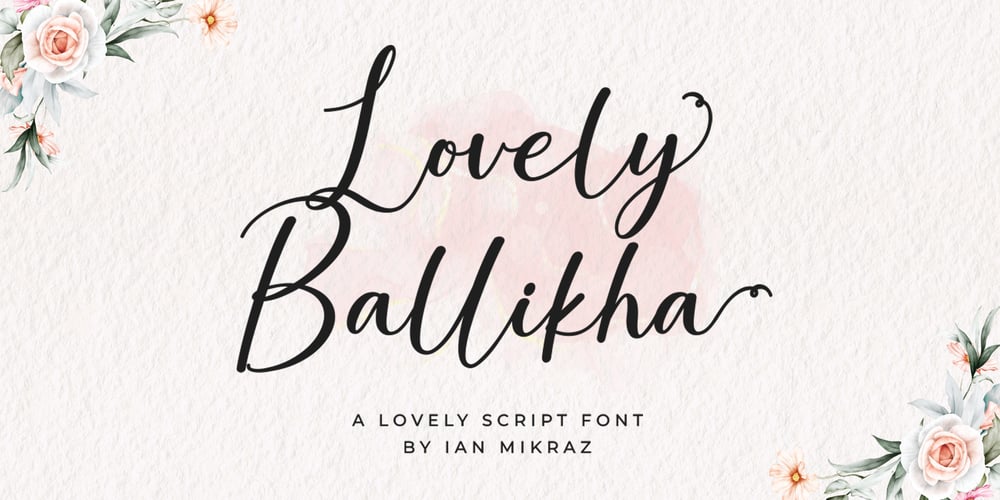
Lovely Ballikha
Lovely Ballikha font
Lovely Ballikha Font Family was designed by Ian Mikraz and published by IanMikraz Studio. Lovely Ballikha contains 1 styles and family package options. A stunning script font designed to add elegance and charm to your projects. With its graceful and flowing strokes, this versatile typeface is perfect for wedding invitations, greeting cards, branding materials, and more.Whether you’re aiming for a sophisticated or a whimsical look, Lovely Ballikha effortlessly brings a touch of loveliness to every design. With its extensive character set and ligature features, this font allows you to create captivating and personalized typography that exudes warmth and character. Elevate your designs with Lovely Ballikha and let your creativity shine with every stroke and swirl.